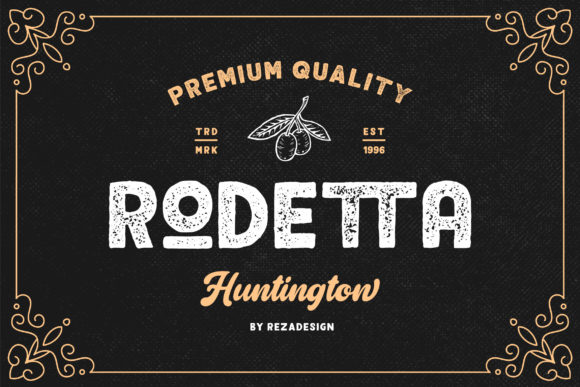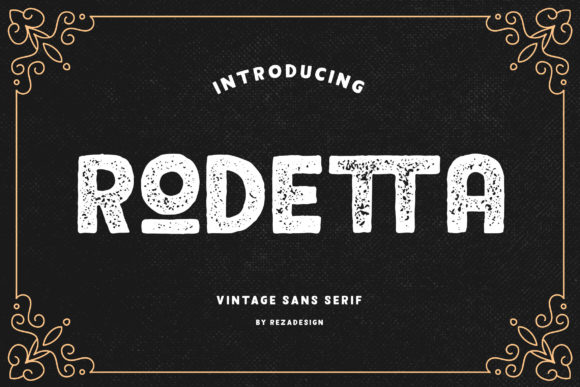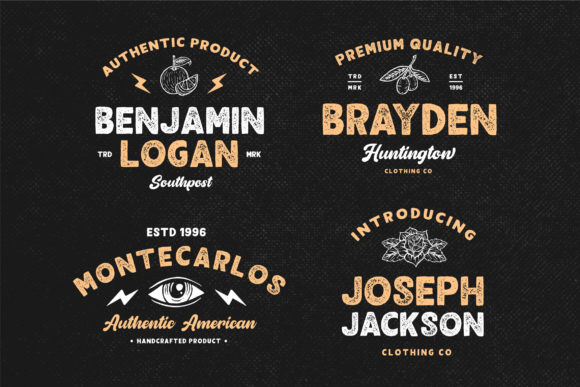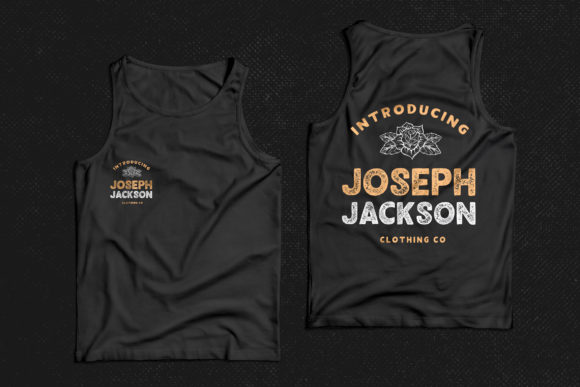
Rodetta Font: Bold Vintage Sans Serif for Unique Logo Design
About the Rodetta Font
Add a touch of class to your work with the Rodetta Font, a truly exceptional typeface. Rodetta is a vintage sans serif font with a bold twist. Get inspired by this one-of-a-kind font!
Rodetta’s bold, vintage aesthetic makes it ideal for headlines, logos, and short, impactful text on posters or packaging. Its strong character shines in branding for products emphasizing retro style, craftsmanship, or a rebellious spirit. Avoid using it for body text or lengthy paragraphs; its weight and unique letterforms are not optimized for readability in extended use.
Pairing Rodetta effectively requires considering its strong personality. A clean, geometric sans-serif like Futura would provide a modern contrast, while a classic serif like Garamond could add a touch of sophistication. For a more playful approach, a script font with a slightly vintage feel could complement its bold energy.
Ultimately, Rodetta projects a confident, retro-inspired boldness. It’s a statement font best suited for projects requiring visual impact and a strong sense of personality.
Rodetta Font Usage Examples
Rodetta Font Example